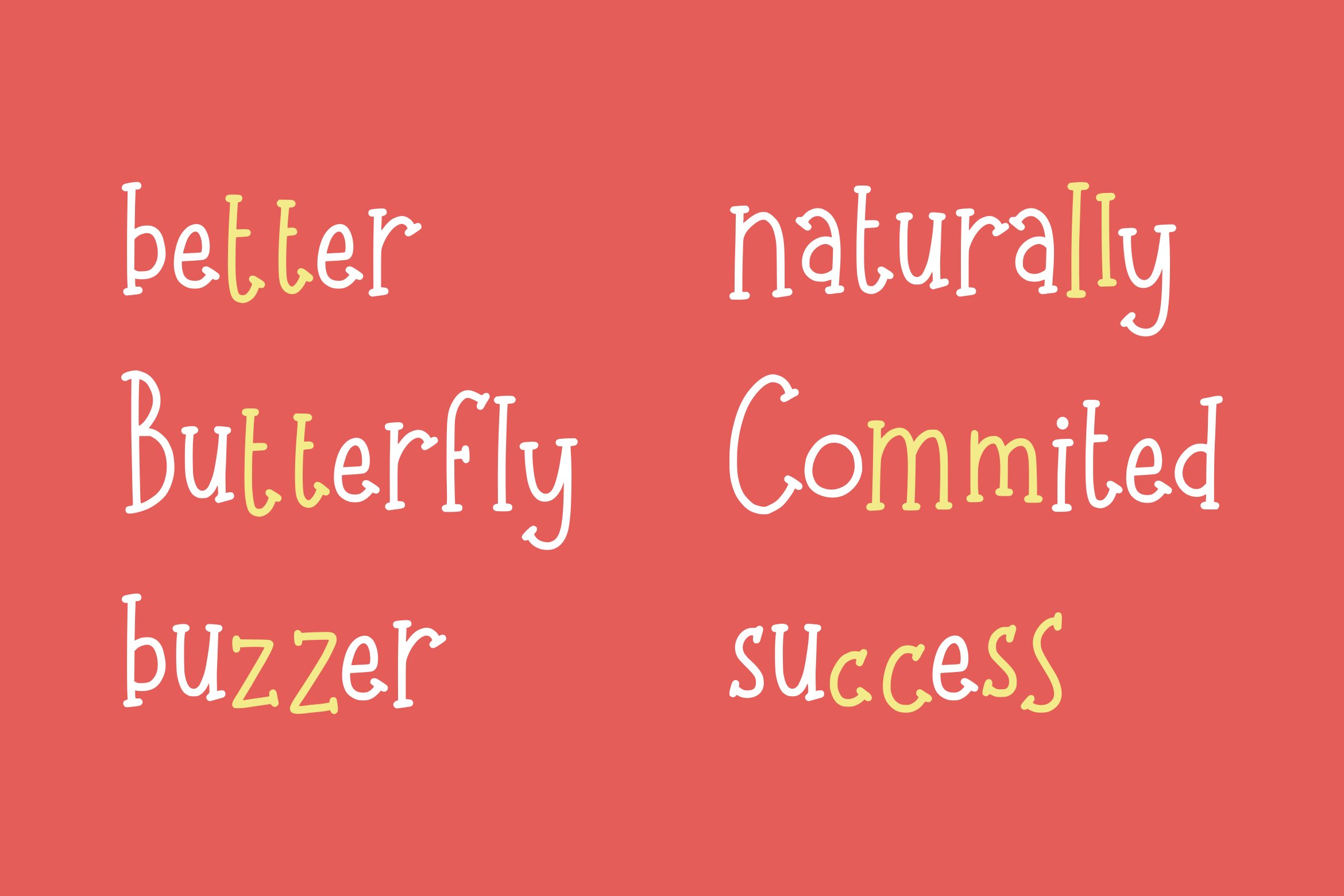
Adelaide & Georgie Font. Adelaide & Georgie is a cute and friendly display font. This original look will appeal to a wide range of crafty ideas, from letterheads and titles, to stationery.
Adelaide & Georgie Font is perfect for product packaging, branding project, megazine, social media, wedding, or just used to express words above the background.